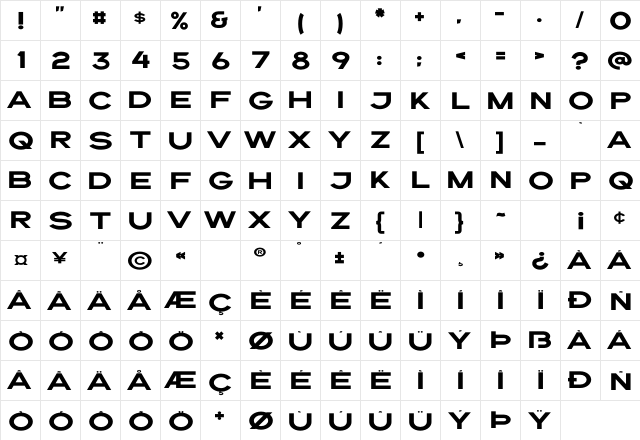
Draper Regular
| Foundry | Don Marciano |
| Designer | Juan Miguel Castillo |
Design Context for Draper Typeface
Draper takes a measured approach to typography — its balanced proportions and neutral character make it a reliable workhorse for both digital and print work.